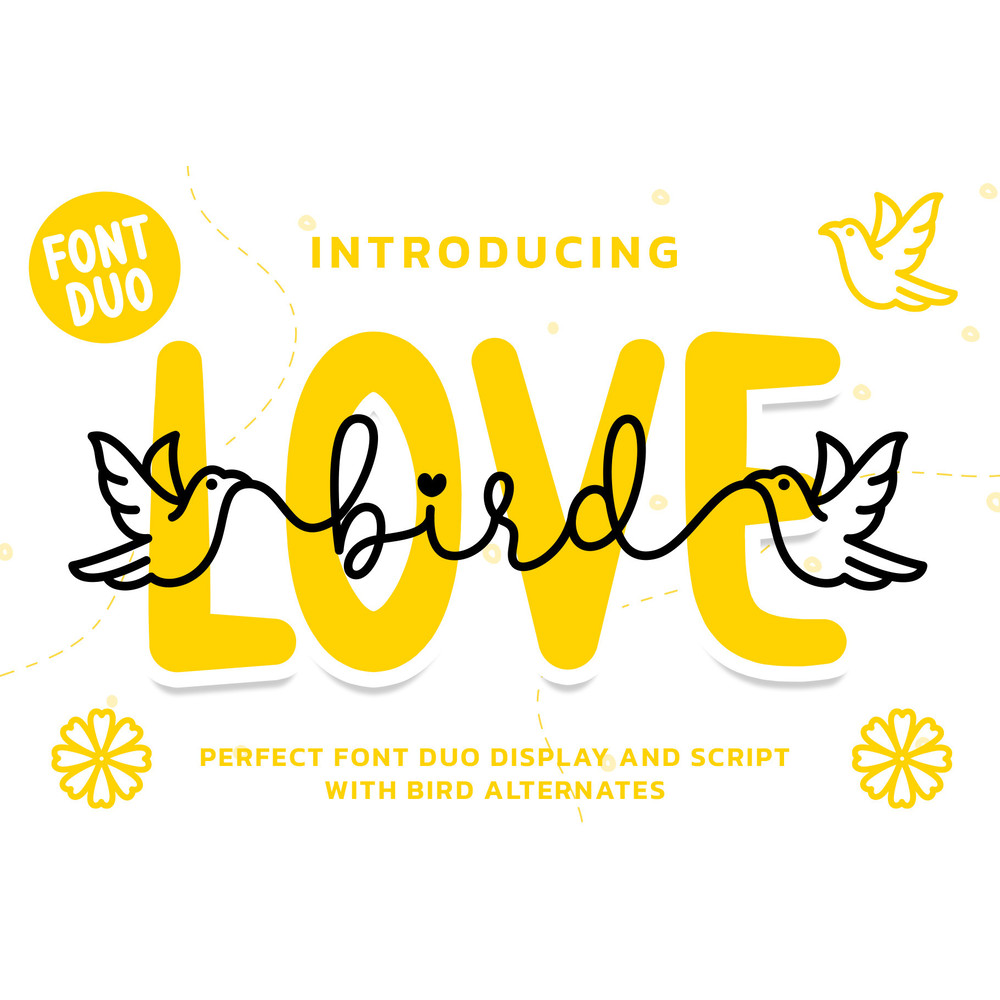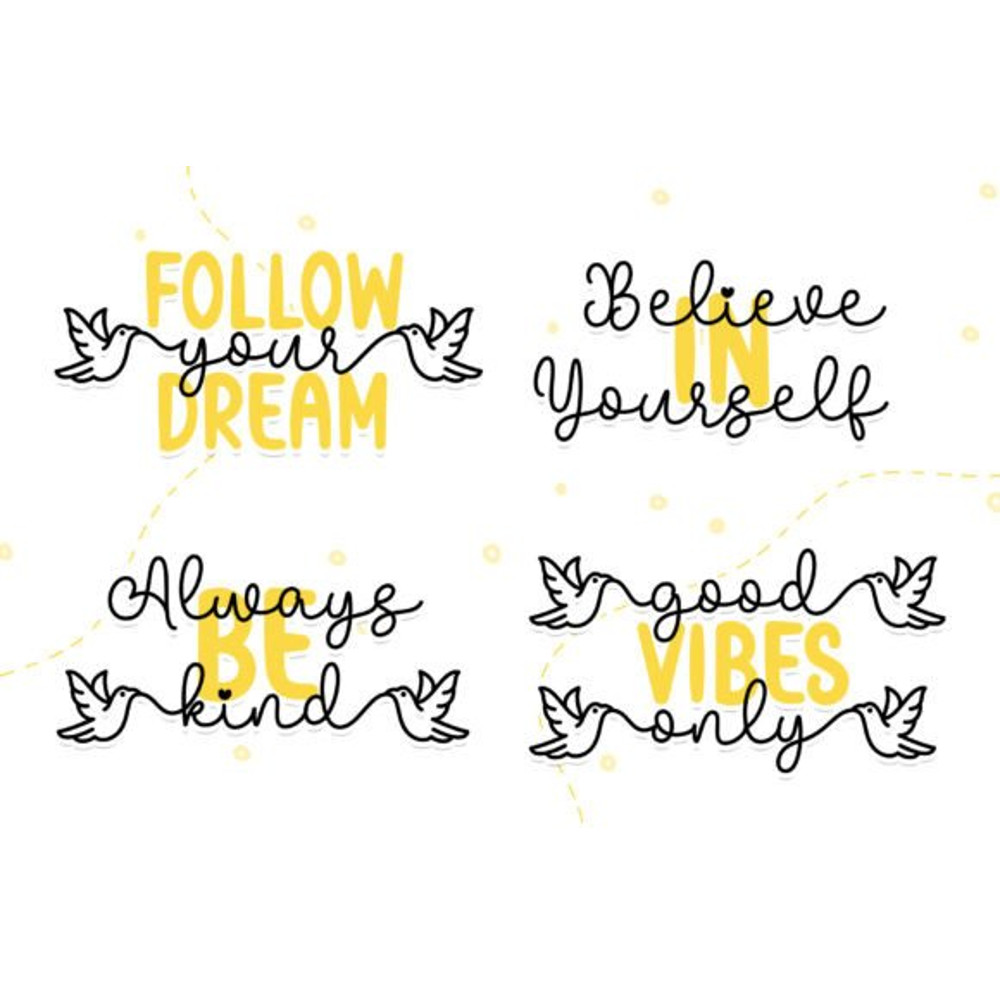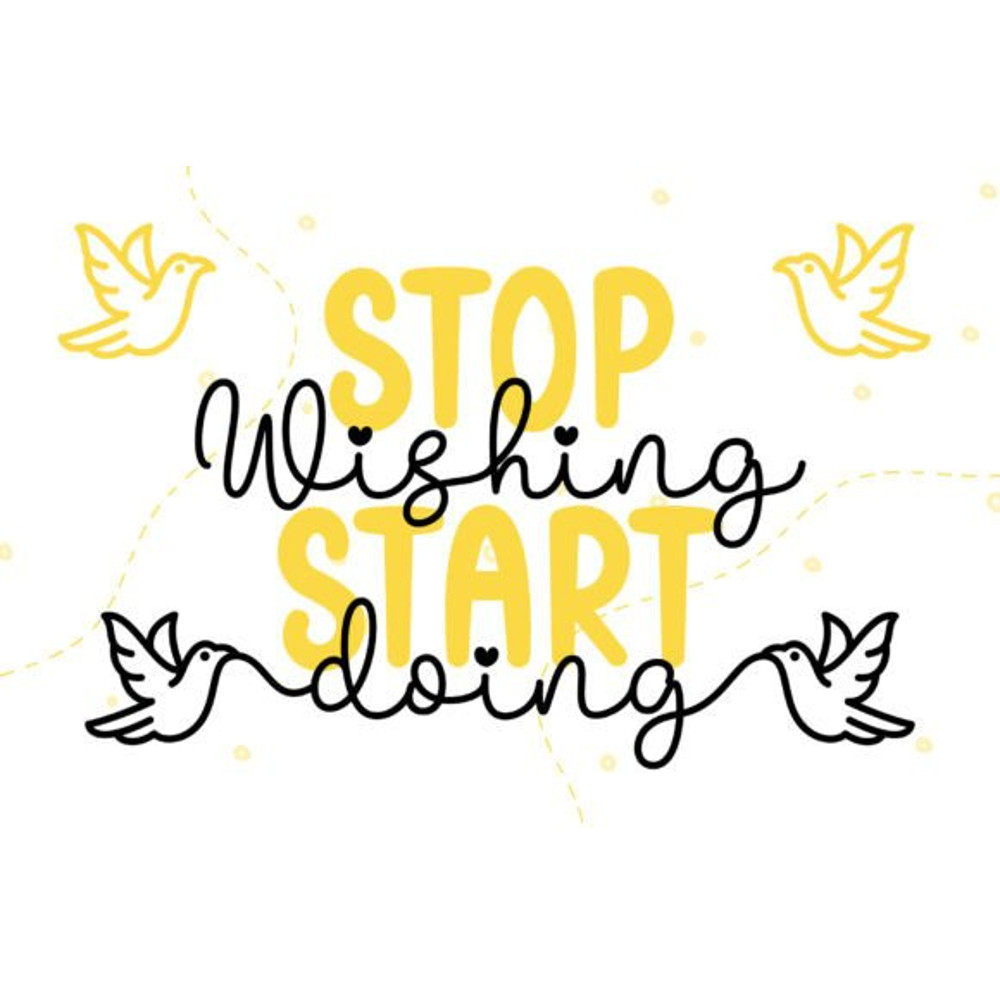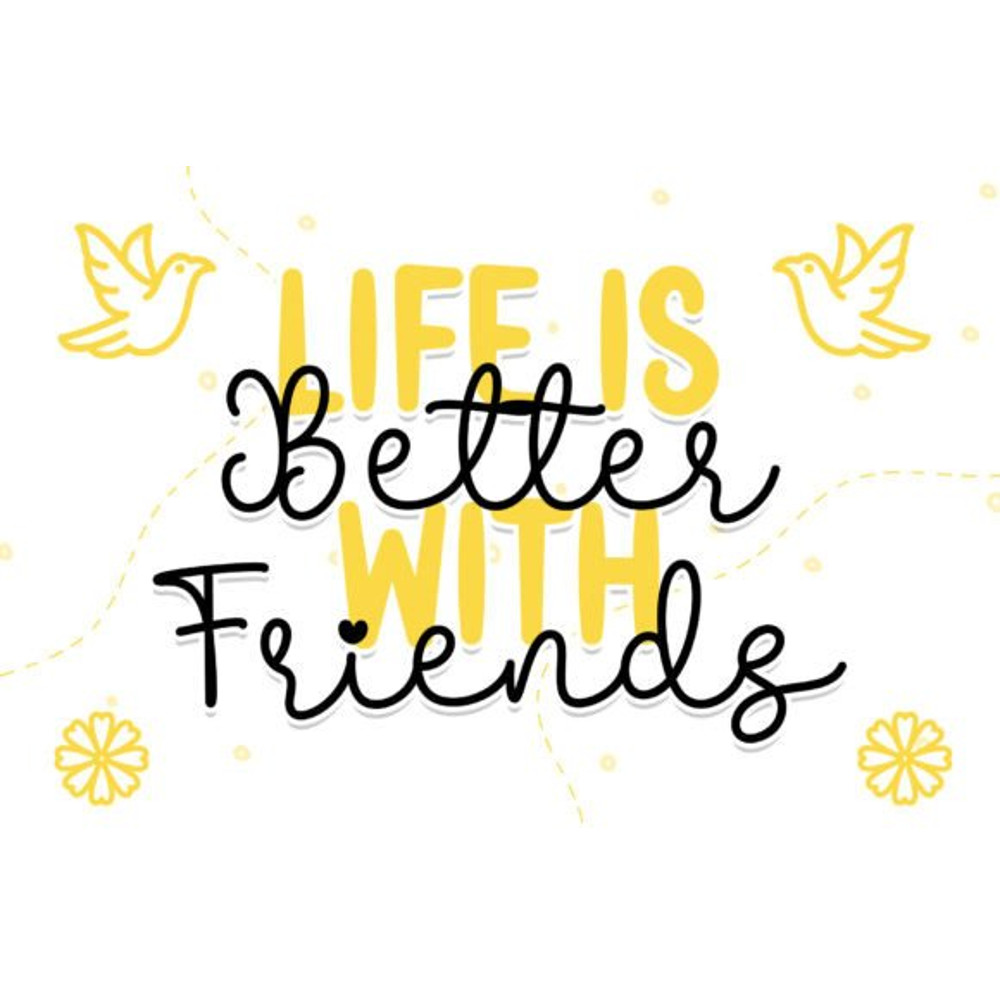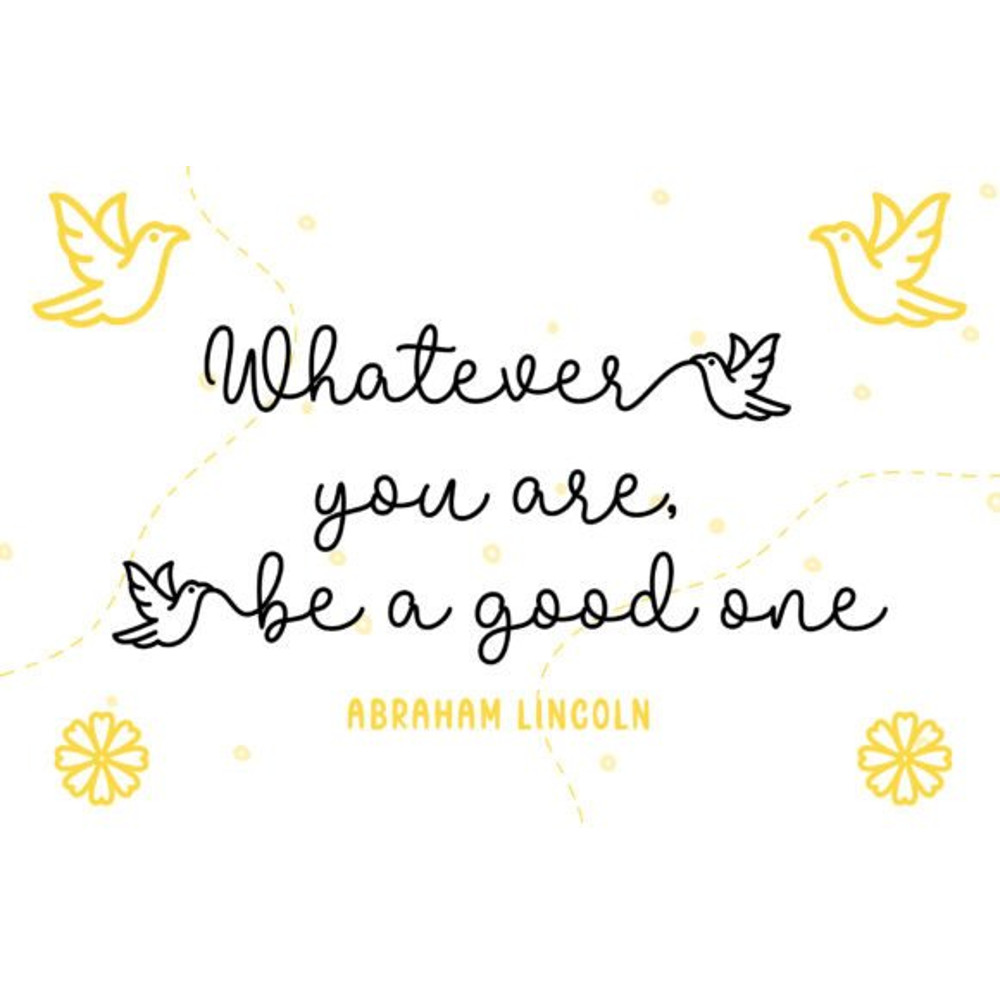
Love Bird is an ornate script font that features elegant birds as part of the intricate calligraphy. Its graceful curves and delicate lines make it perfect for adding beauty and romance to any project. This font is PUA encoded which means you can access all glyphs and swashes effortlessly!